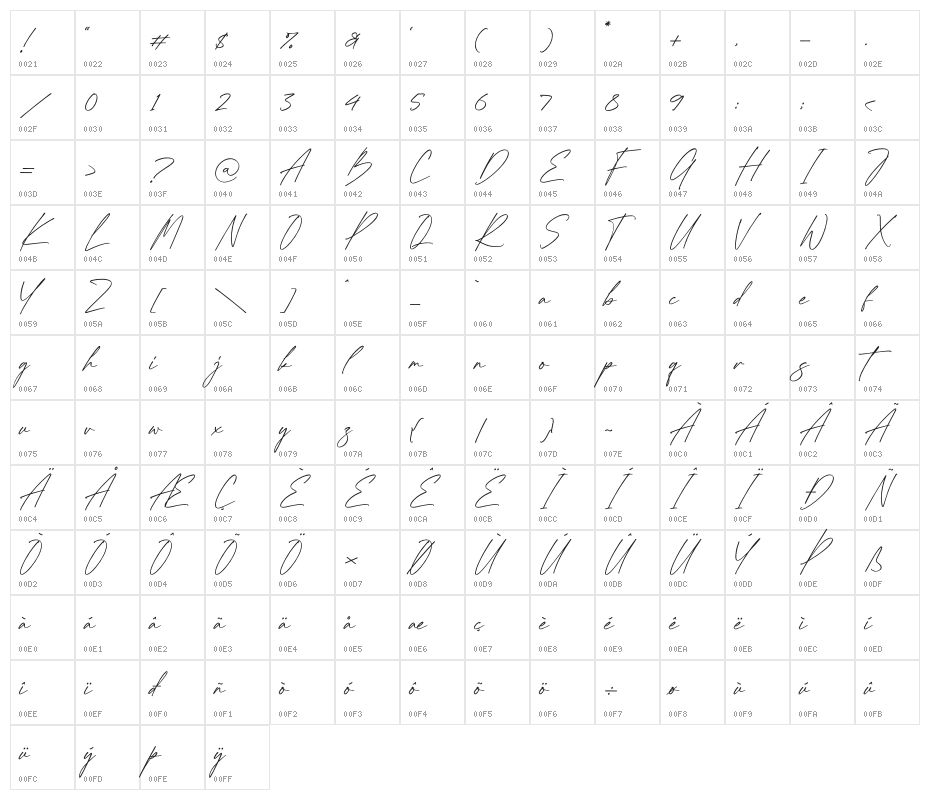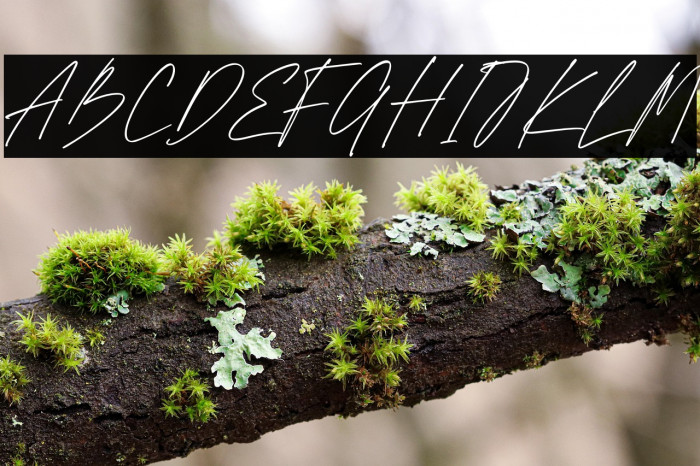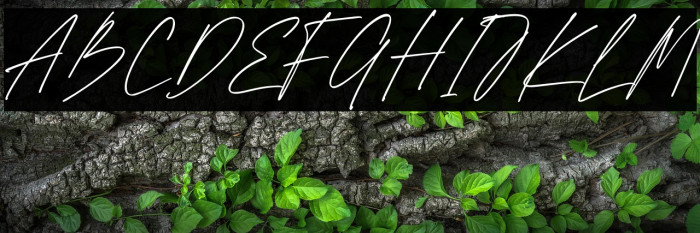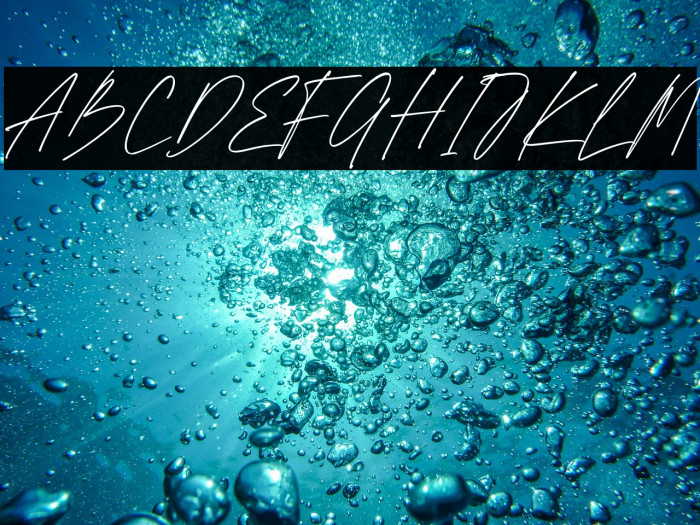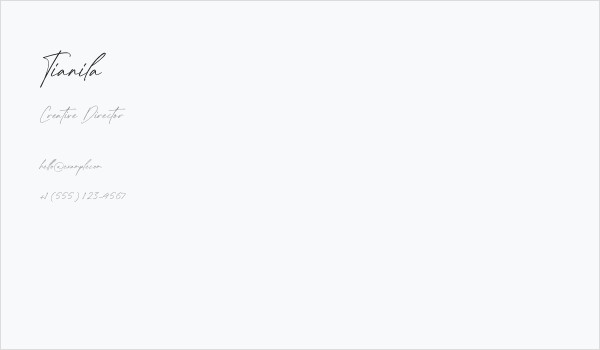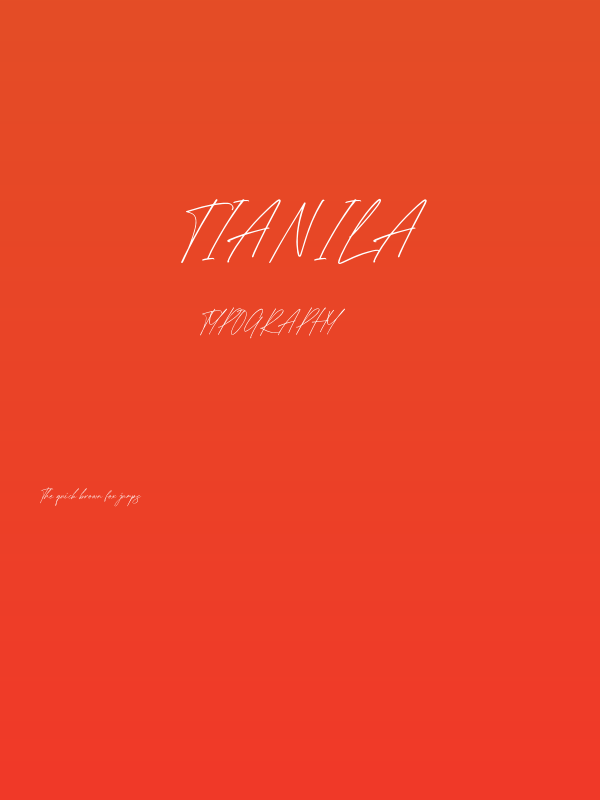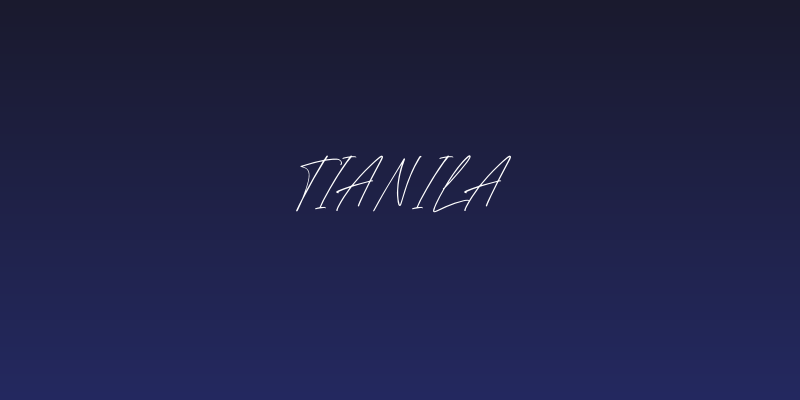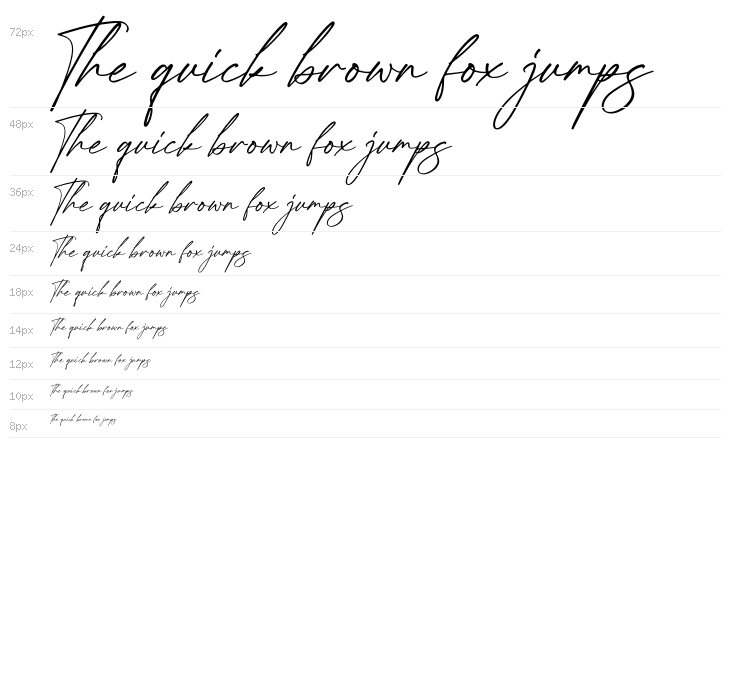
Tianila Font
Tianila Description
A flowing, cursive script font with a handwritten appearance, featuring elegant and elongated letterforms.
| Proposed Projects | Invitations, personal branding, artistic projects. |